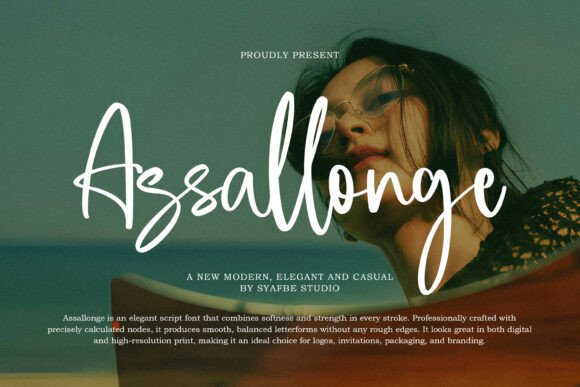
The Designer’s Delight: Unveiling the Assallonge Font
I’ll never forget the struggle I faced while working on a wedding invitation project. My client wanted a font that exuded elegance, yet had a personal touch. I scoured the internet, tried countless fonts, but nothing seemed to fit the bill. That’s when I stumbled upon Assallonge, a modern script font that has since become a staple in my design toolkit.
A Perfect Blend of Elegance and Casualness
Assallonge is a masterclass in balancing contrasting elements. This font seamlessly merges elegance, softness, and strength, creating a harmonious visual experience. Each stroke feels natural and flowing, giving it a delicate handwritten look that retains its strong character. The design is crafted with high precision, resulting in balanced, clean letterforms without harsh edges, making it suitable for a wide range of applications.
What I Love About Assallonge
- ✨ Elegant yet approachable: Assallonge conveys a sense of luxury without being too formal.
- ✅ Versatile: Suitable for logos, invitations, product packaging, branding, and more.
- 💫 Emotional connection: Each letter conveys a gentle emotion, making it perfect for designs that require a personal touch.
- 🔍 High-precision design: Clean letterforms and balanced layout make it a joy to work with.
Honest Review: A Few Quirks
While Assallonge is an exceptional font, it’s not without its limitations. Here are a few things to keep in mind:
- 🤔 Limited use in very small sizes: Assallonge shines in larger sizes, but may lose some of its elegance when used in very small sizes.
- ⚠️ Not ideal for body text: While it’s possible to use Assallonge for body text, it’s primarily designed for headlines and titles.
- Experiment with OpenType features like ligatures and stylistic alternates to add visual interest.
The Story Behind Assallonge
Assallonge was designed with the intention of creating a font that embodies both sophistication and warmth. The designer aimed to craft a font that would be suitable for a wide range of applications, from high-end branding to personal invitations. The result is a font that exudes elegance while still feeling approachable and personal.
| What makes Assallonge unique? | Assallonge’s unique blend of elegance, softness, and strength sets it apart from other script fonts. |
| Is Assallonge suitable for digital use? | Absolutely! Assallonge delivers optimal results in both digital and high-resolution print. |
| Can I use Assallonge for body text? | While possible, Assallonge is primarily designed for headlines and titles. It’s not ideal for extended body text. |
With Assallonge, every design will appear more refined, elegant, and personal. Whether you’re a designer, crafter, or creative hobbyist, this font is sure to become a valuable addition to your toolkit.